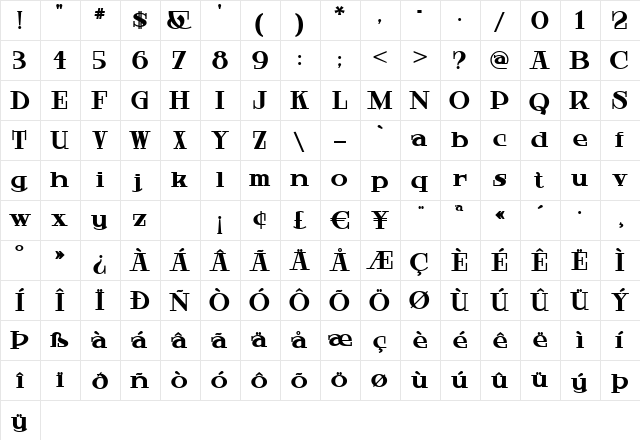
HardlyWorthit Regular
Design Context for HardlyWorthit Typeface
HardlyWorthit takes a measured approach to typography — its balanced proportions and neutral character make it a reliable workhorse for both digital and print work.